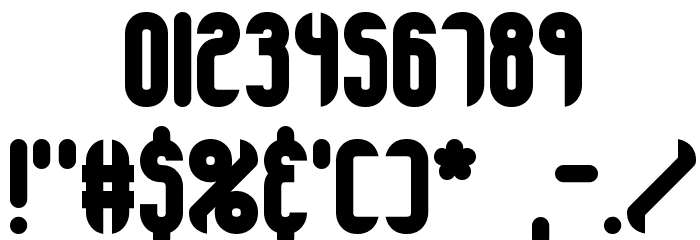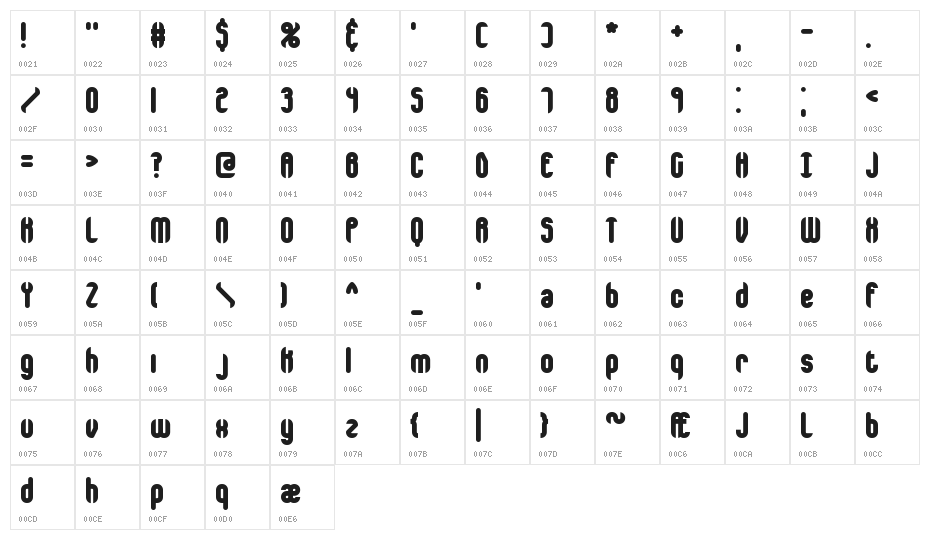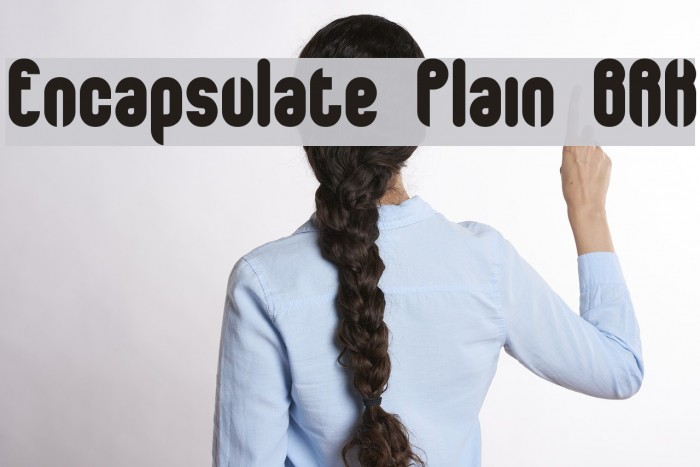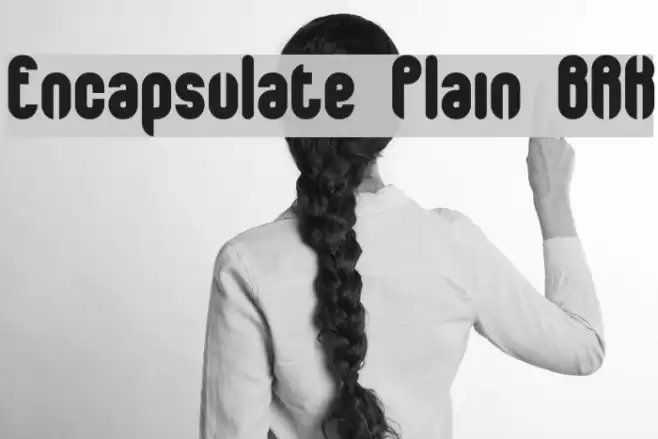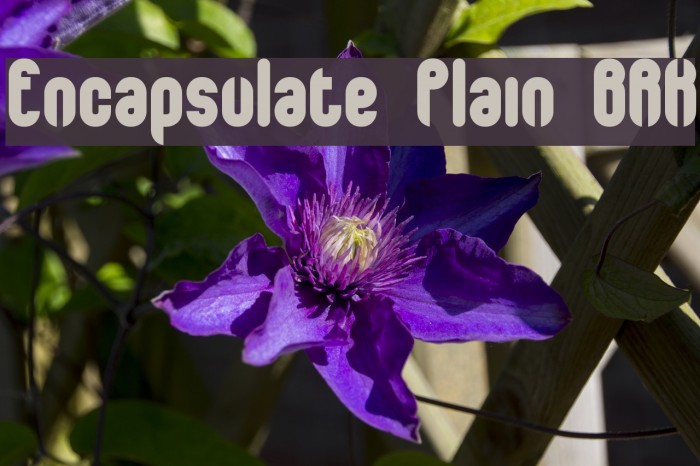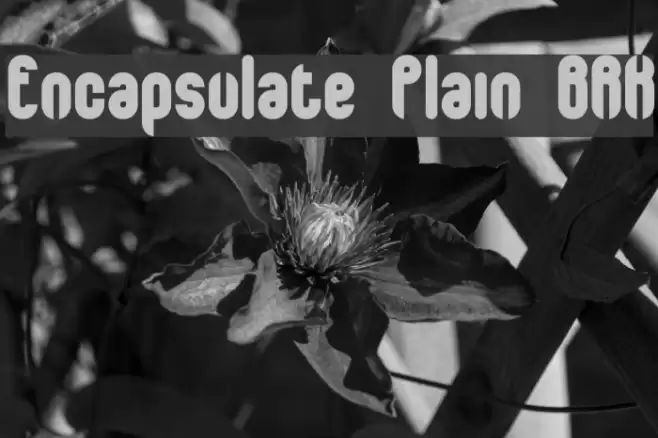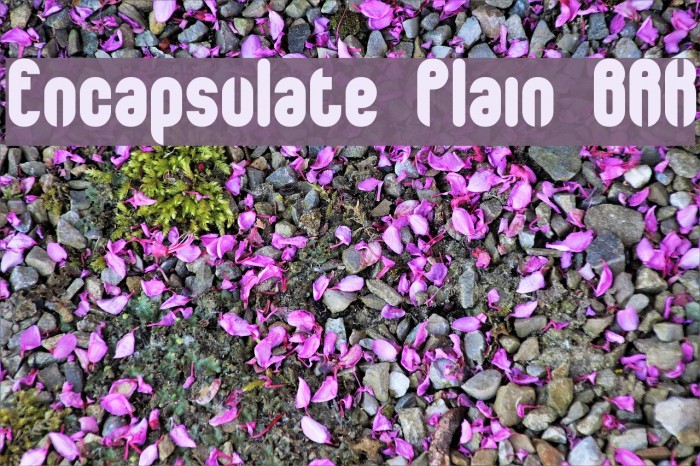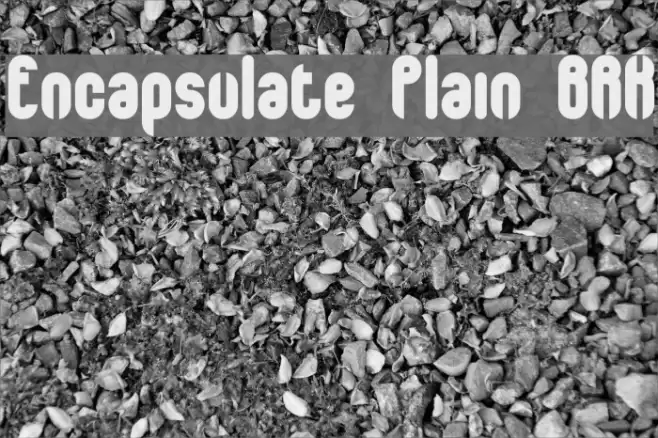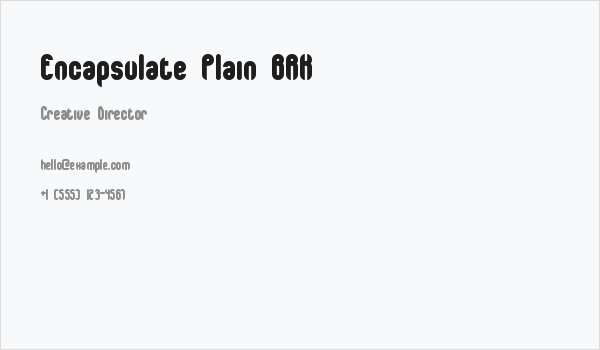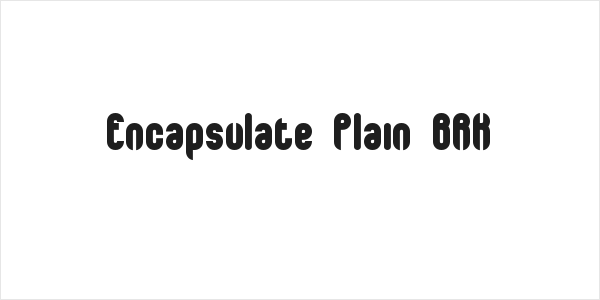
Encapsulate Plain BRK Font
Encapsulate Plain BRK Description
This font features a bold and rounded style with a distinct geometric influence. The characters are uniformly thick, giving it a strong and impactful appearance. The rounded edges soften the overall look, making it approachable yet assertive. The uppercase and lowercase letters maintain a consistent height, contributing to a cohesive and balanced design. Numbers and special characters follow the same stylistic cues, ensuring uniformity across all glyphs. This font is particularly suited for modern and contemporary designs, where a bold statement is desired.
| Proposed Projects | Ideal for branding, headlines, posters, and any design requiring a strong visual impact. |